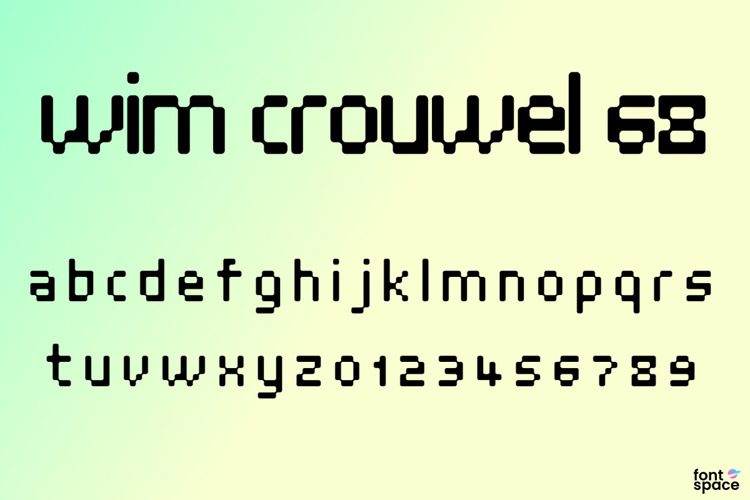
Wim Crouwel 68 Font
About Wim Crouwel 68 Font
This is closely based on a typeface on the cover of 20th Century Type Remix (1998, Laurence King Publishing), which is in turn based on a poster by Wim Crouwel in 1968, appearing on page 113 of said book.